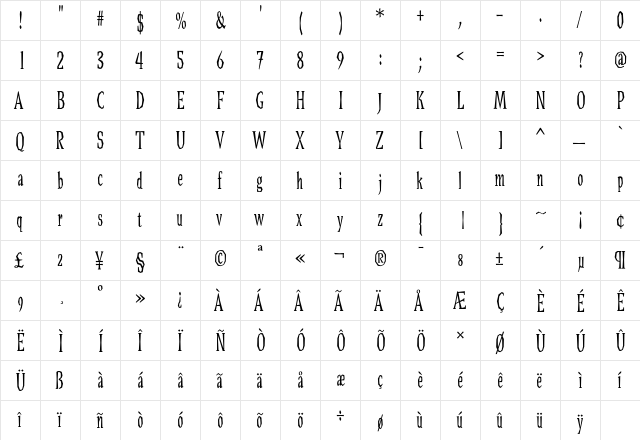
Bradley Regular
Design Context for Bradley Typeface
Bradley takes a measured approach to typography — its balanced proportions and neutral character make it a reliable workhorse for both digital and print work.